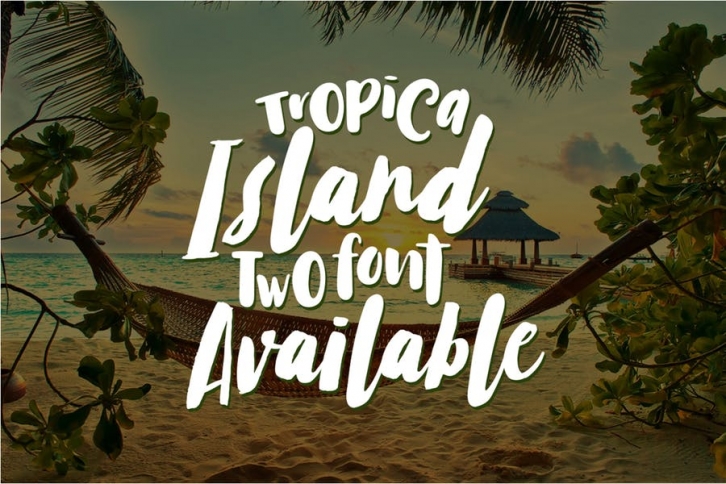
Tropical Island perfect for greeting cards, magazine, branding, social media, print, packaging, and many more.
• Tropical Island Sans
• Tropical Island Script